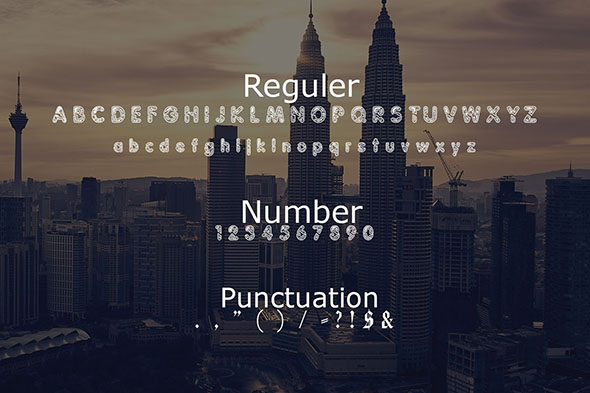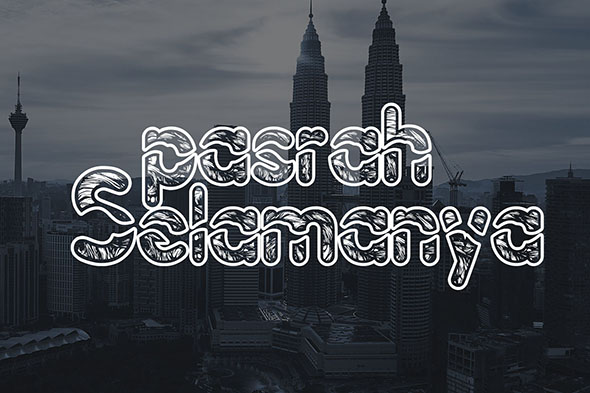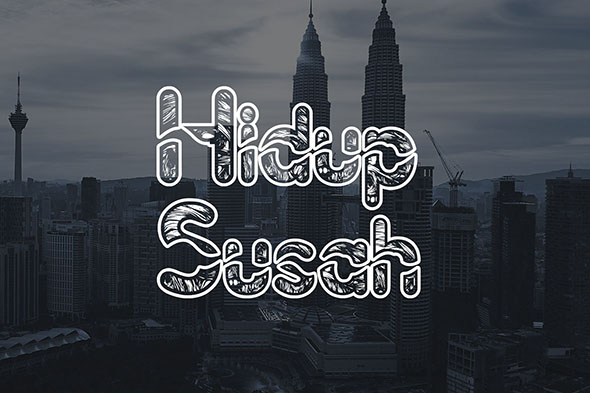
Introduction to Njalanie Font
Have you ever stared at a blank canvas, searching for the perfect font to bring your creative project to life? The struggle is real, but the wait is over with the Njalanie Font by Gblack Id. This stunning font has been making waves in the design community, and for good reason – its unique blend of elegance and sophistication makes it a game-changer for designers.
As a valuable design resource, the Njalanie Font offers a high-quality solution for creatives seeking to elevate their work. With its transparent background and versatility, this font is perfect for a wide range of applications, from branding and advertising to digital art and design. And the best part? It’s available for free download, making it an accessible and exciting addition to any design arsenal.
Key Features of Njalanie Font
- High-quality design with a unique and elegant style, perfect for creative projects and designs.
- Perfect for use in various design contexts, including logos, typography, and creative projects.
Honest Review: Njalanie Font
I recently stumbled upon the Njalanie Font while searching for high-quality design resources for a creative project. I was excited to give it a try and see if it would meet my expectations.
- ✨ Beautiful and elegant design: The Njalanie Font has a unique and sophisticated style that is perfect for a wide range of creative projects.
- ⚠️ Limited font sizes: While the font is available in a range of sizes, I found that it doesn’t offer as many options as some other fonts I’ve used.
- ⚠️ Not suitable for bold text: The font’s elegant design makes it less suitable for bold or headline text, which may limit its use in certain creative projects.
Overall, I’m impressed with the Njalanie Font’s high-quality design and flexibility. While it may have some limitations, it’s a great resource for designers looking for a unique and elegant font for their creative projects. I’d definitely recommend giving it a try, especially since it’s free to download!
Njalanie Font
The Njalanie Font is a versatile, high-quality design resource perfect for creative projects. It’s available for free download, offering a transparent background that makes it easy to customize and integrate into your designs.
The Njalanie Font is ideal for a variety of creative projects, including graphic design, digital art, and typography. It’s also a great resource for designers looking for a high-quality, free font to use in their designs.
To get the most out of the Njalanie Font, experiment with different font sizes, colors, and styles to create unique and visually appealing designs. You can also combine the font with other design elements, such as graphics and images, to add depth and interest to your designs.